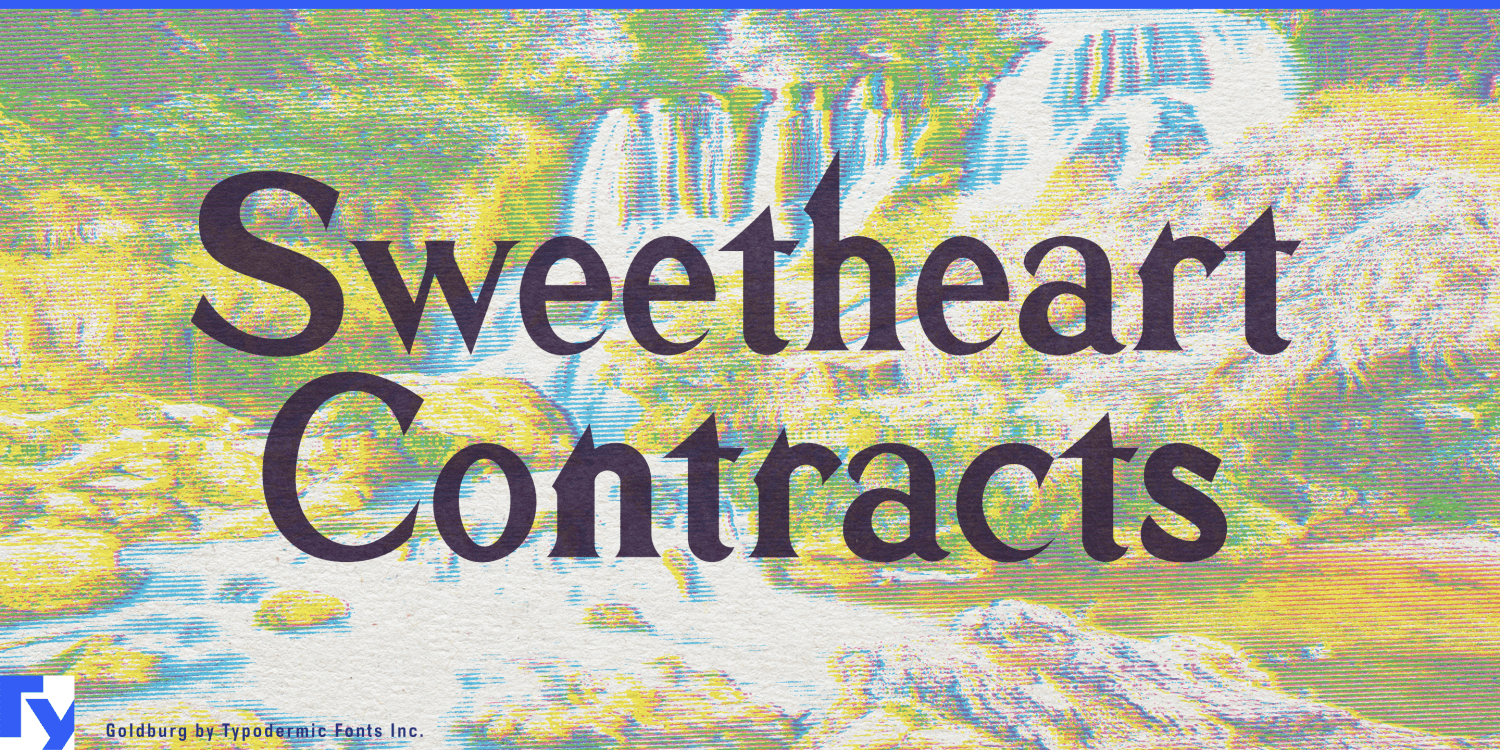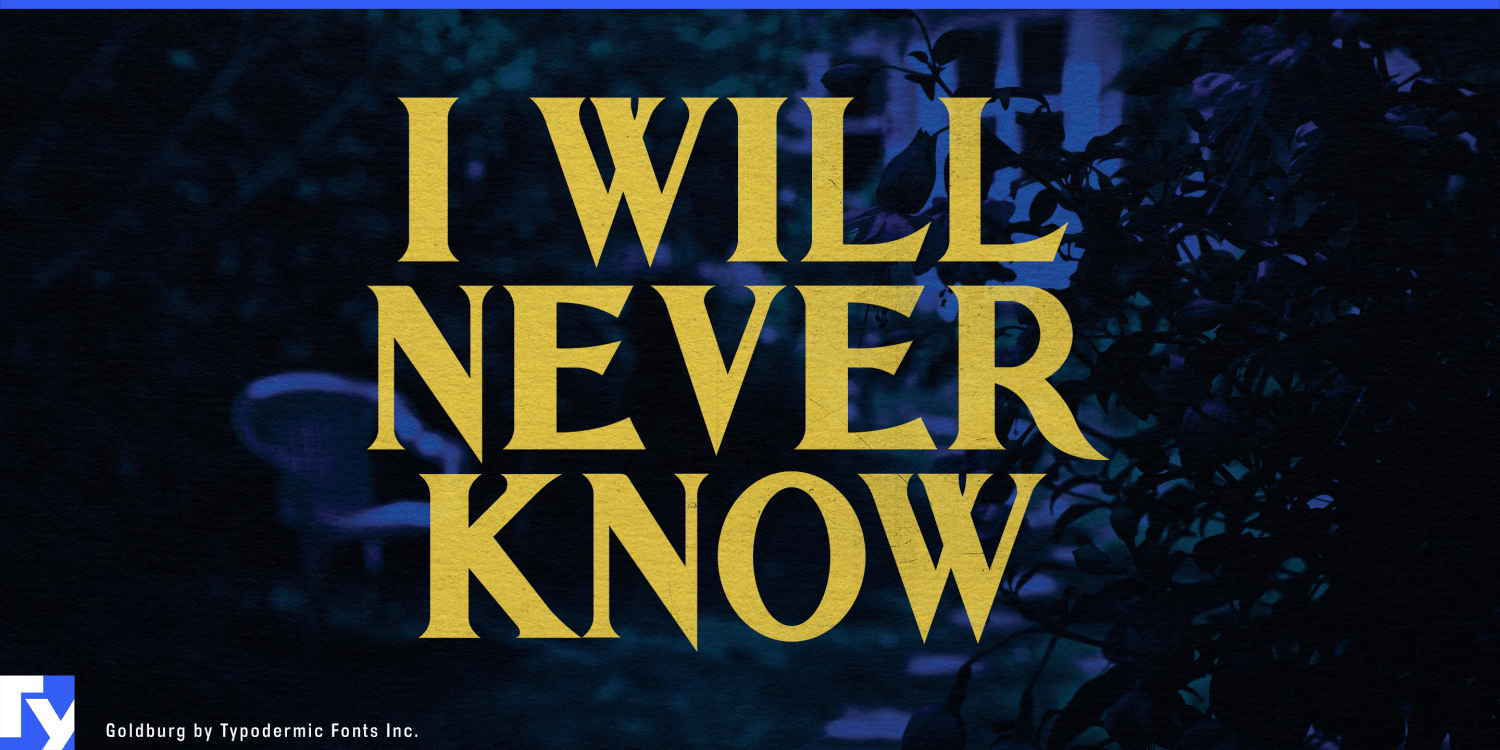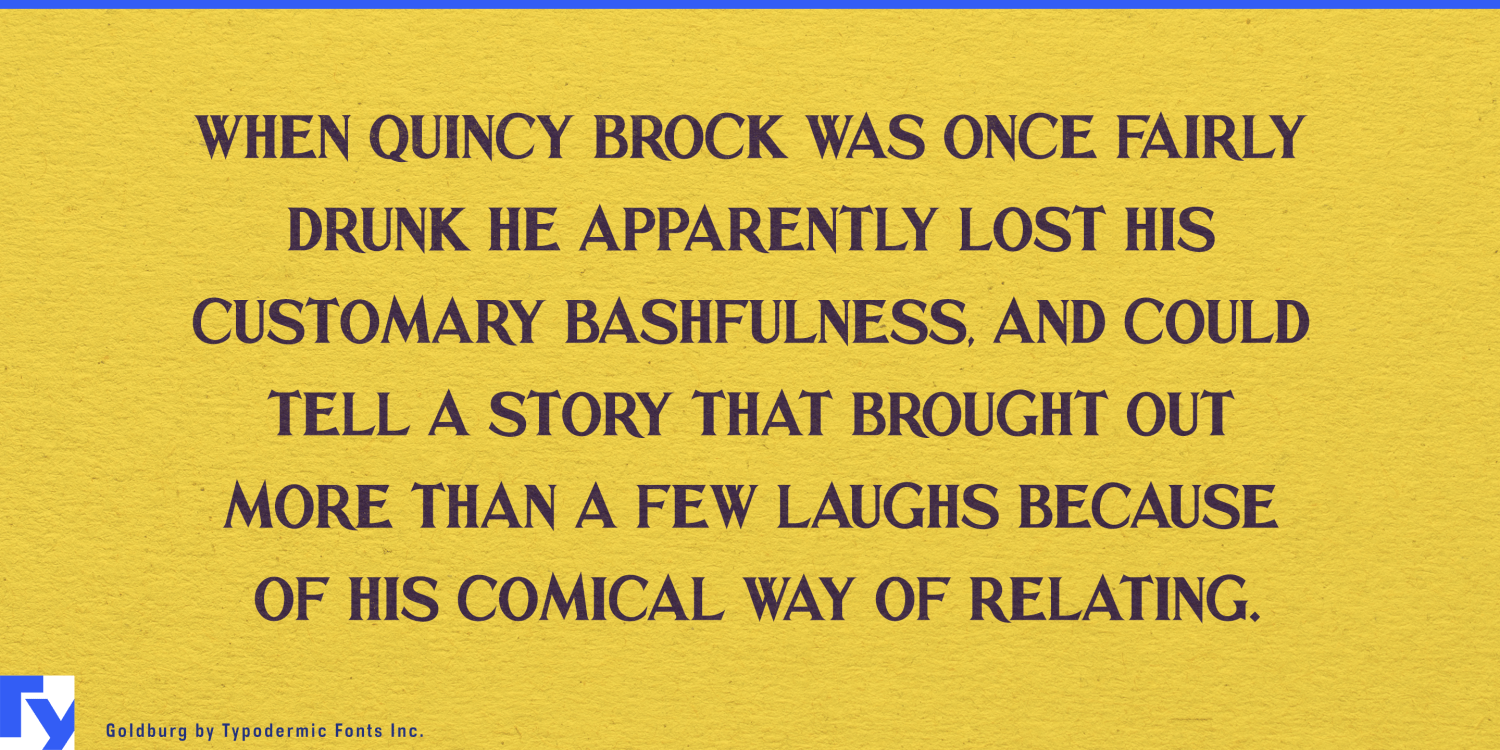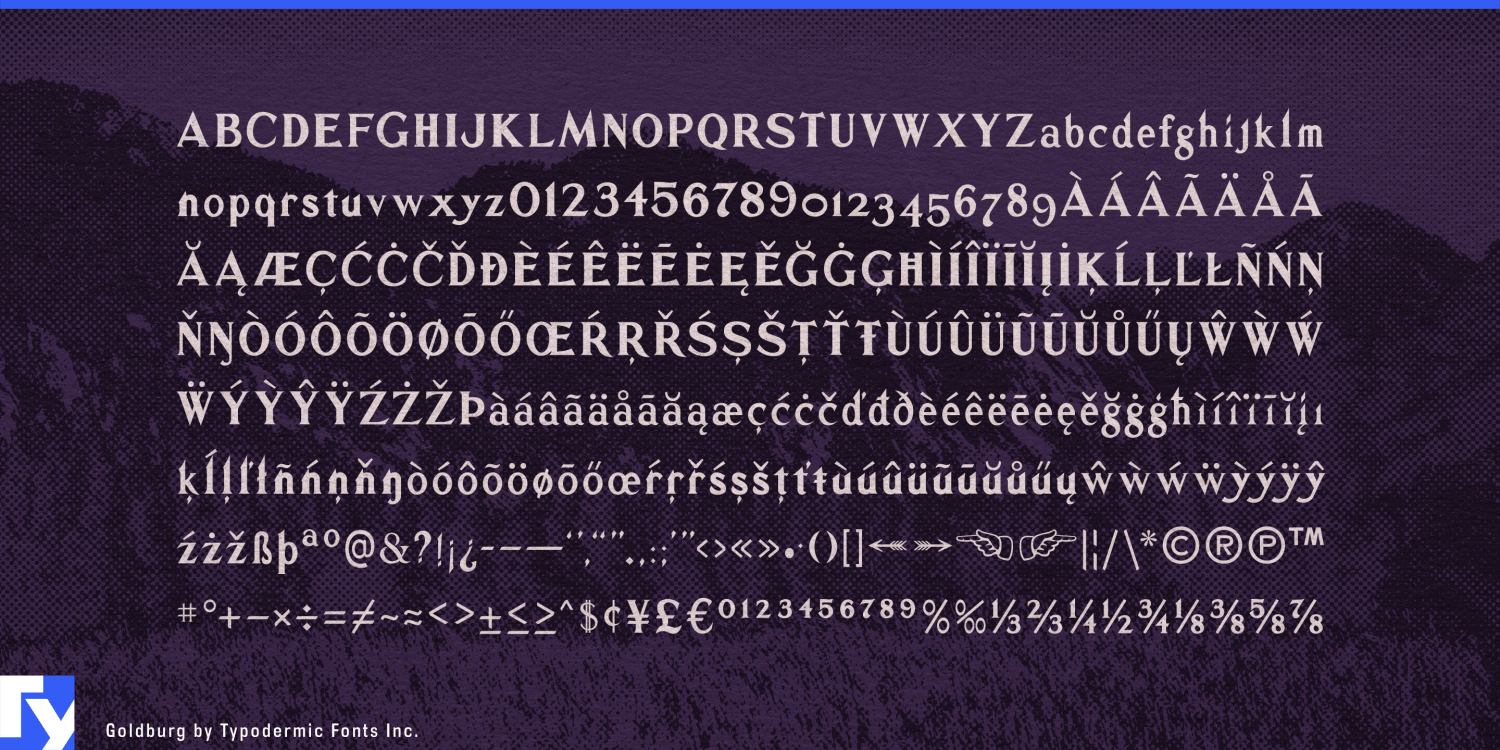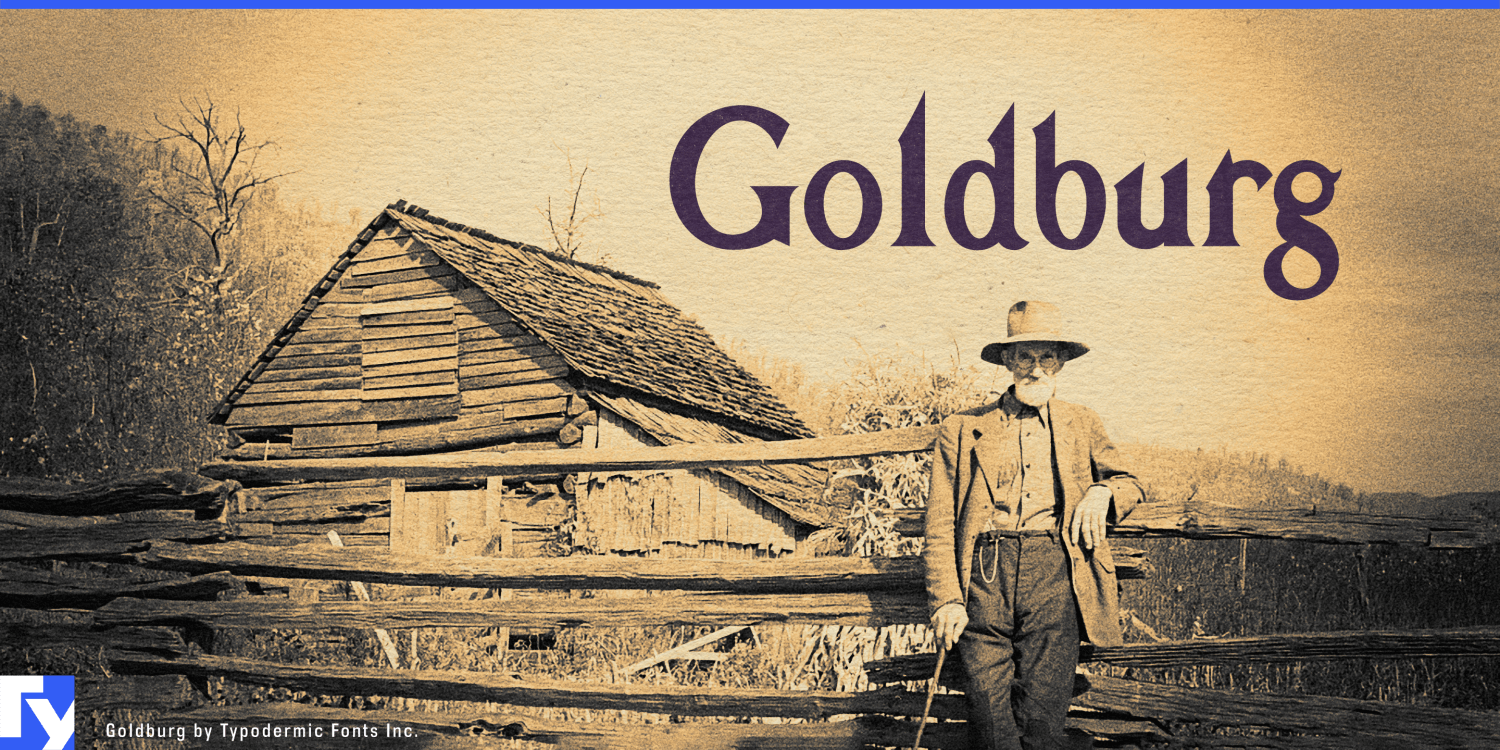
Unearth the hidden gem of typography with Goldburg, a typeface that whispers tales of the American West through its distinctive letterforms. Born from the rugged landscape of Idaho’s historical markers, Goldburg captures the spirit of frontier typography…